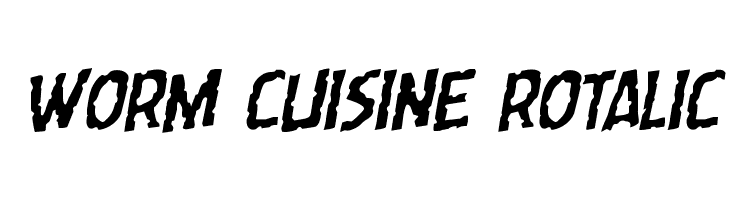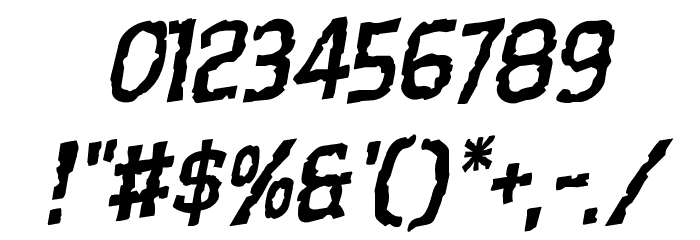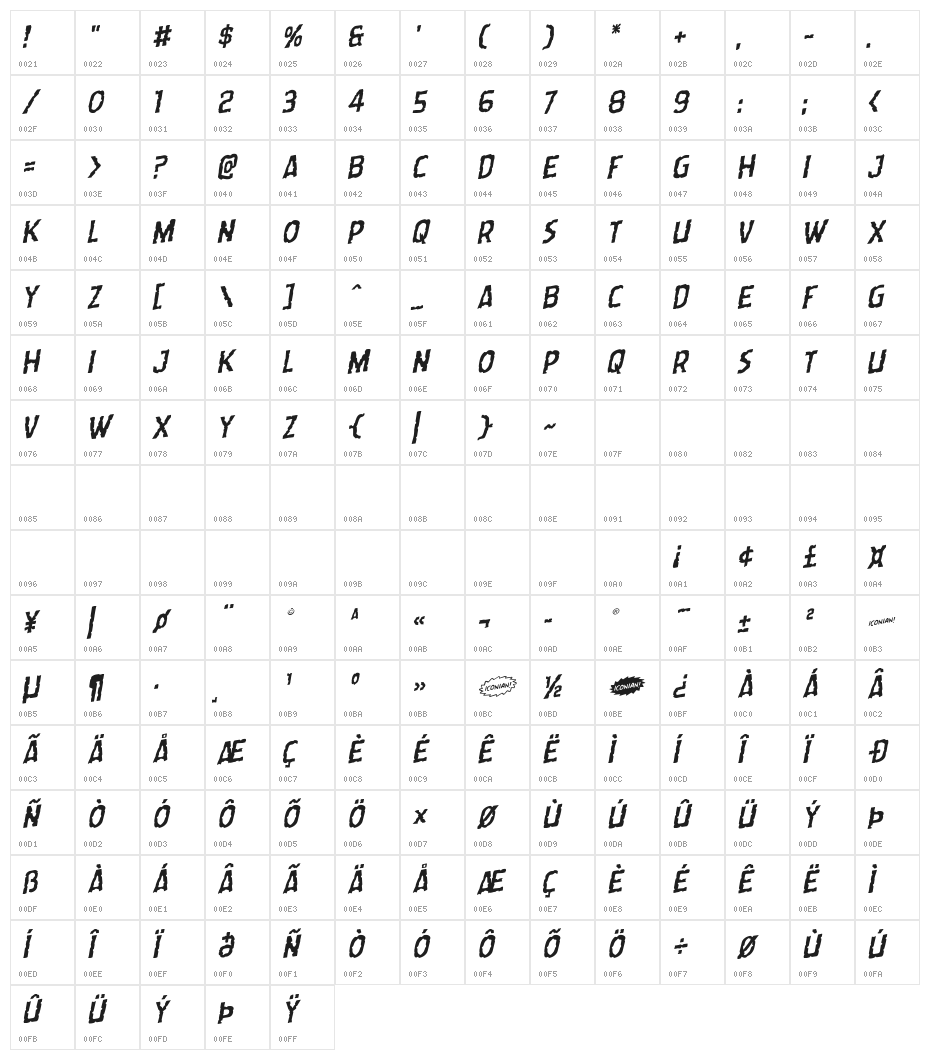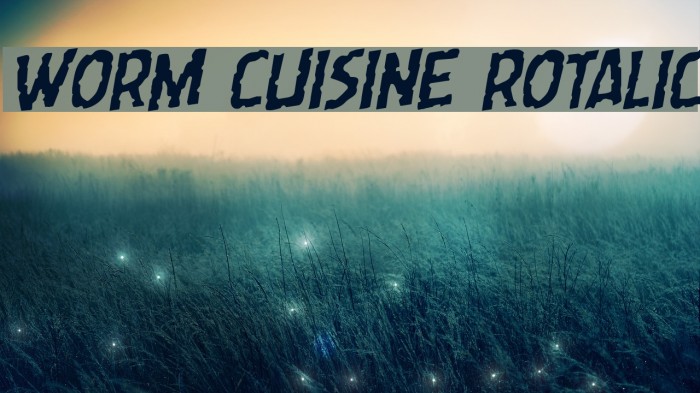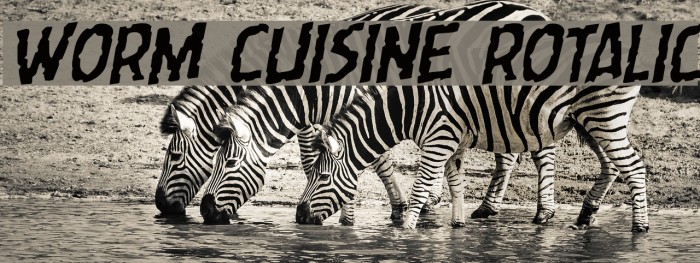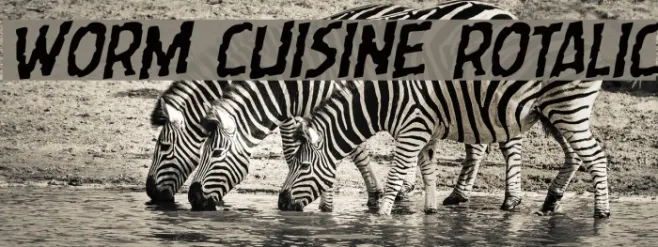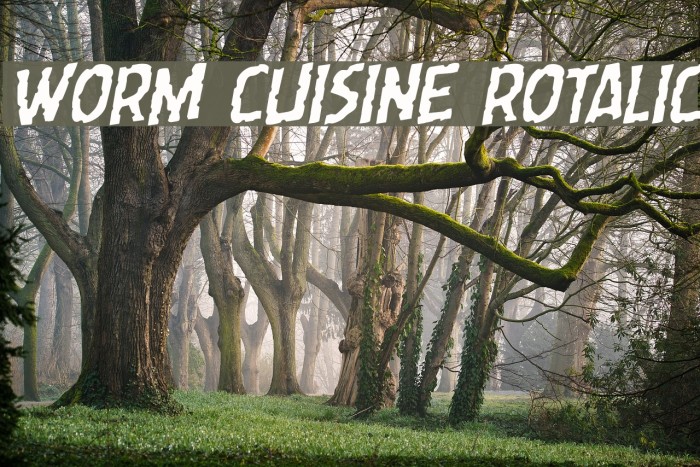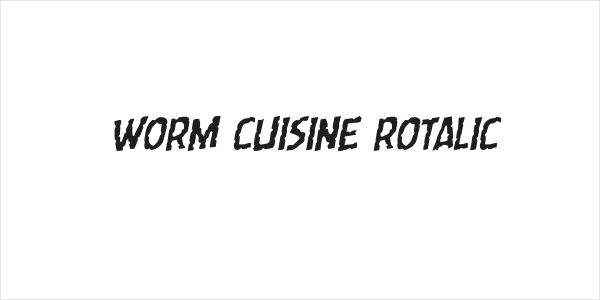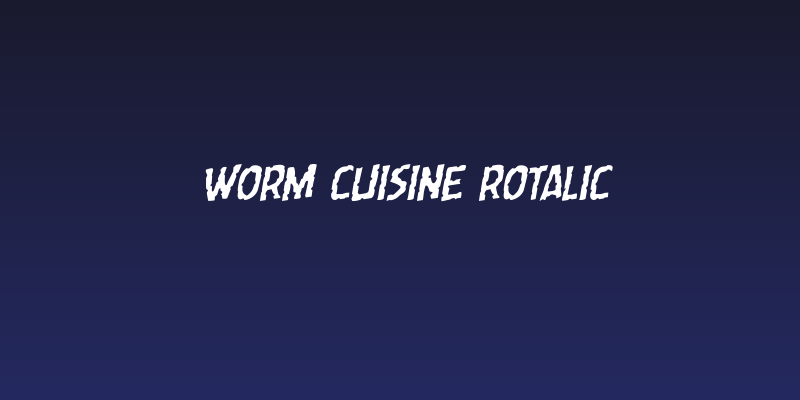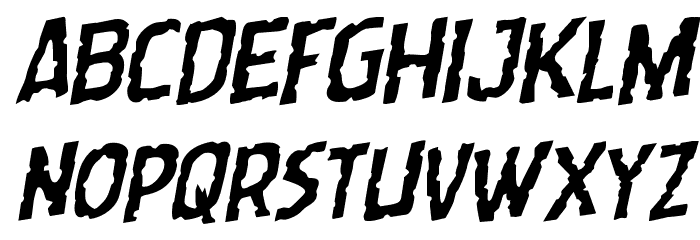
Worm Cuisine Rotalic Font
Worm Cuisine Rotalic Description
This font features a bold and dynamic style with a jagged, irregular edge that gives it a unique, hand-drawn appearance. The characters are slightly slanted, adding a sense of motion and energy. The uppercase and lowercase letters maintain a consistent style, with thick strokes and sharp angles. Numbers and special characters follow the same design, ensuring uniformity across all elements. The font's rough texture and bold presence make it stand out, ideal for projects that require a strong visual impact.